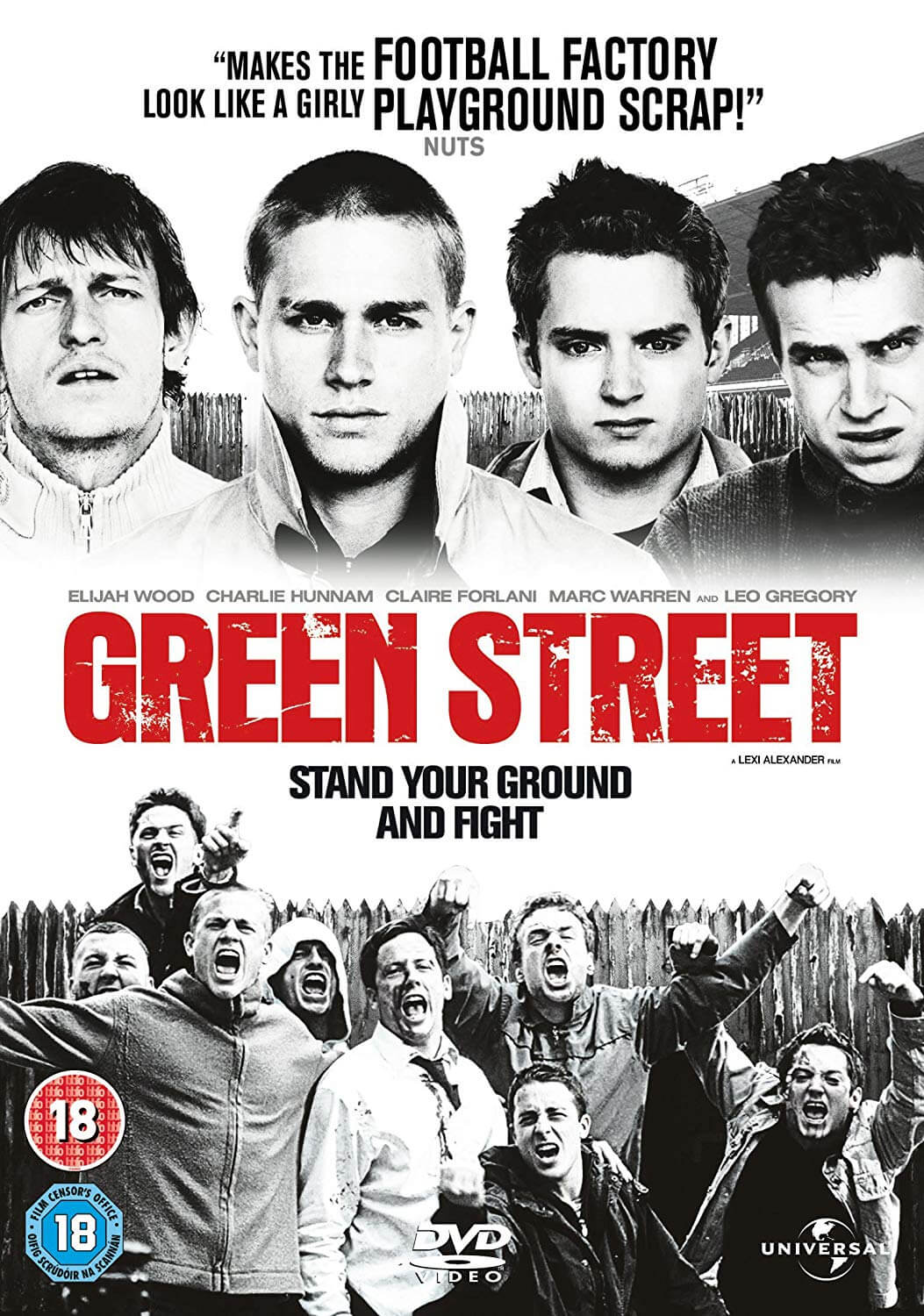
Green Street Font
DramaGreen Street is a 2005 British-American drama film about an American college student who becomes involved with a violent West Ham United football hooligan firm, leading to tragic consequences. The film stars Elijah Wood and Charlie Hunnam.
The film title on the poster appears in a font similar to Aurora Bold Condensed, a narrow sans serif with a large X-height. A free alternative to this font is Aurora Grotesk Nine which is available for download in the Fonts Used Section.